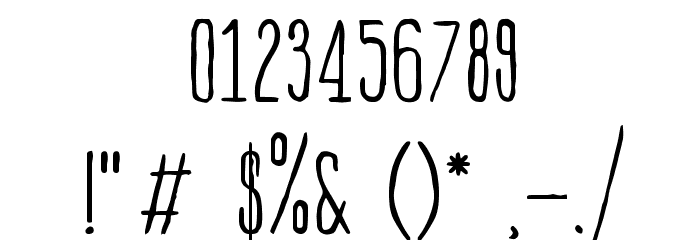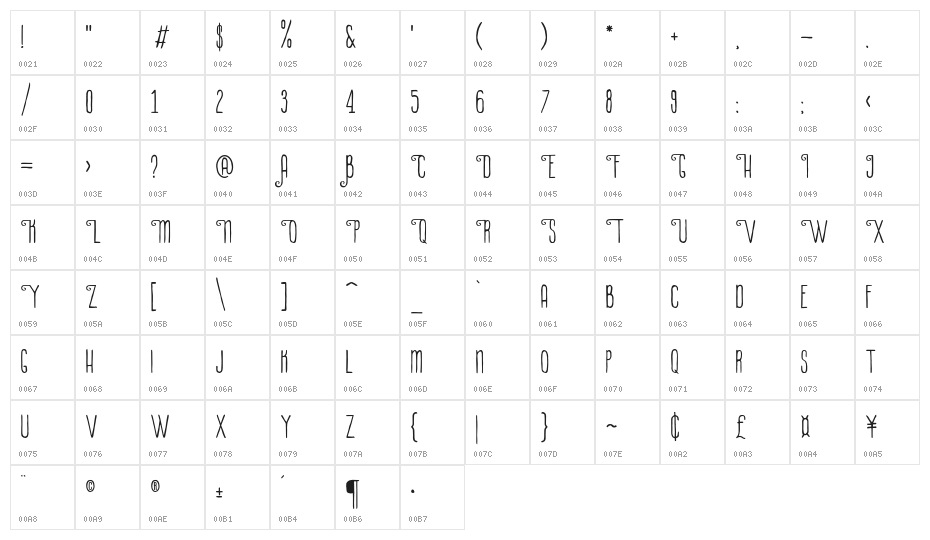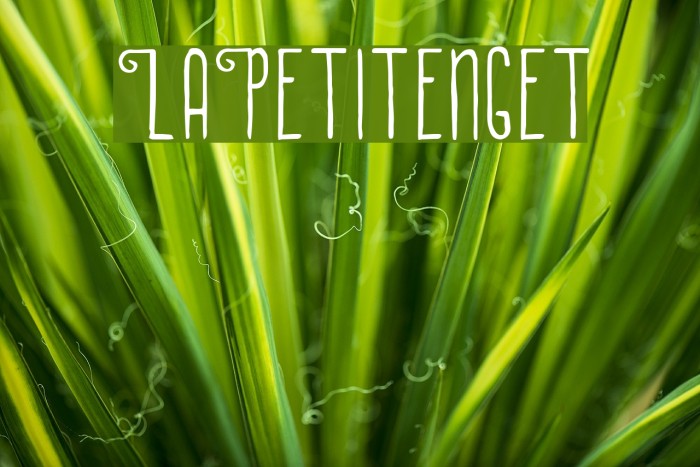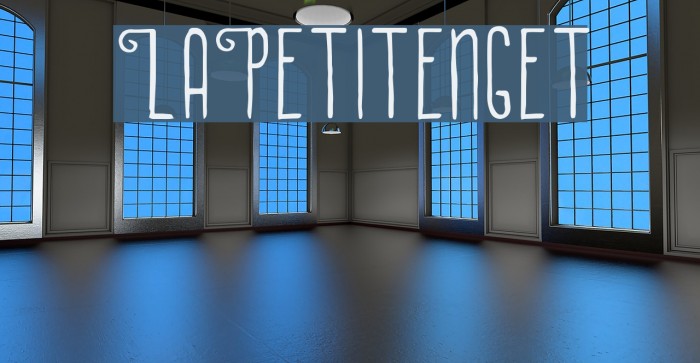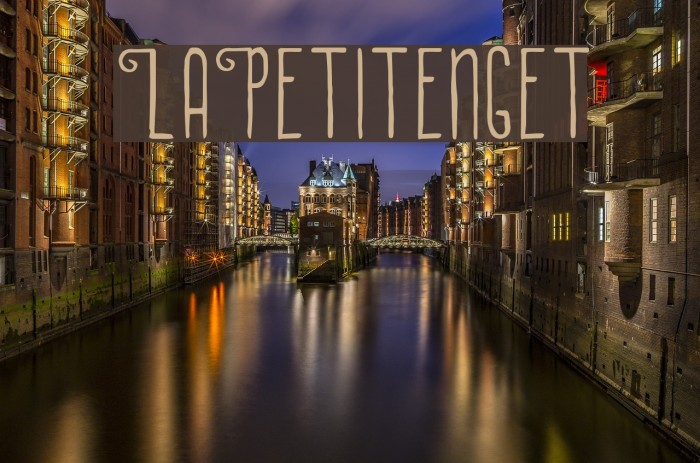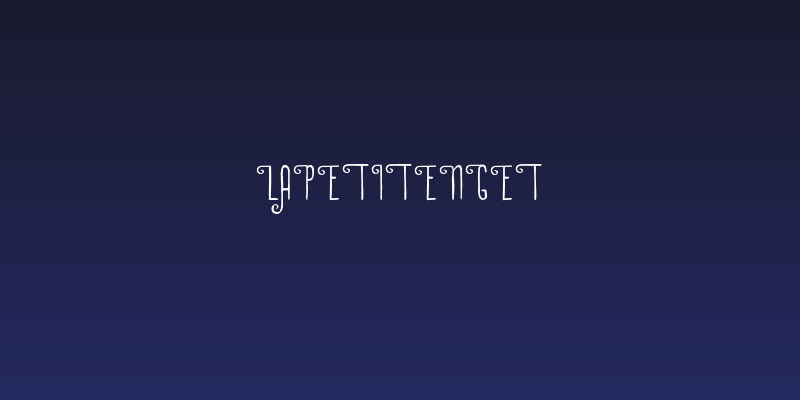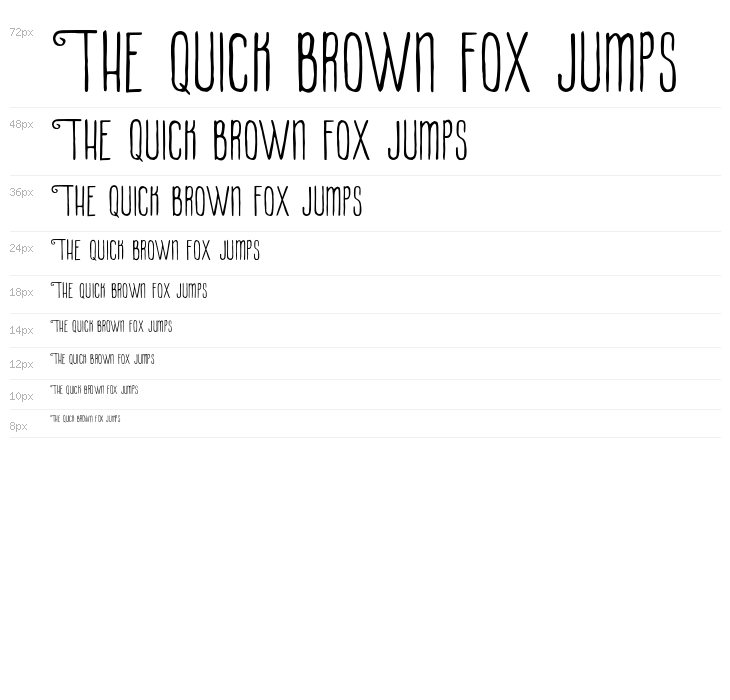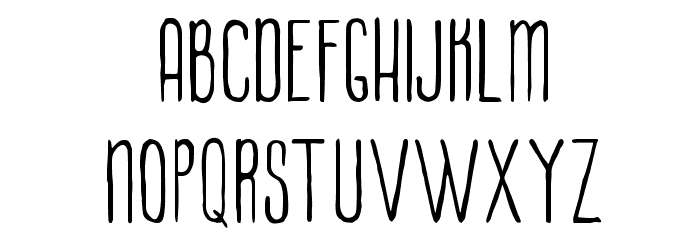
LaPetitenget Font
LaPetitenget Description
This font features a unique and decorative style with an artistic flair. The uppercase letters are adorned with elegant swirls and curls, giving them a whimsical and playful appearance. The lowercase letters maintain a consistent height and are more straightforward, providing a nice contrast to the ornate uppercase. The numbers are tall and slender, matching the overall aesthetic of the font. Special characters are creatively designed, adding to the font's charm. The strokes are thin, with a medium contrast between thick and thin lines, contributing to its delicate and intricate look.